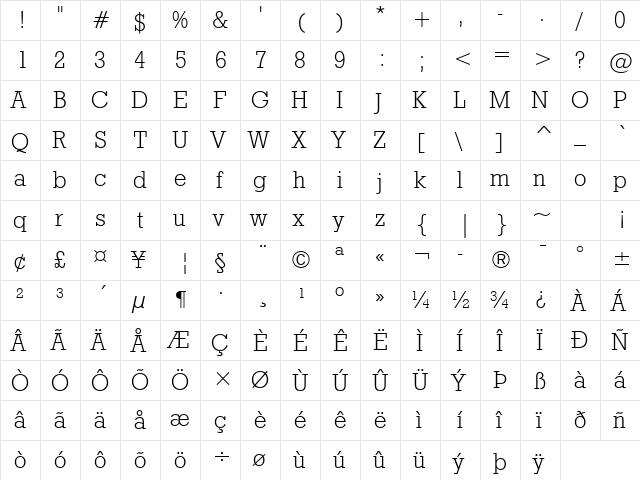
GeoSlb712 Lt BT Light Font Preview
GeoSlb712 Lt BT Light
GeoSlb712 Lt BT Light Font Details
Design Context for GeoSlb712 Lt BT Typeface
GeoSlb712 Lt BT offers clean, dependable letterforms without strong stylistic allegiance, making it a practical choice for designers who need flexibility. The delicate stroke weight brings airiness and refinement to layouts.